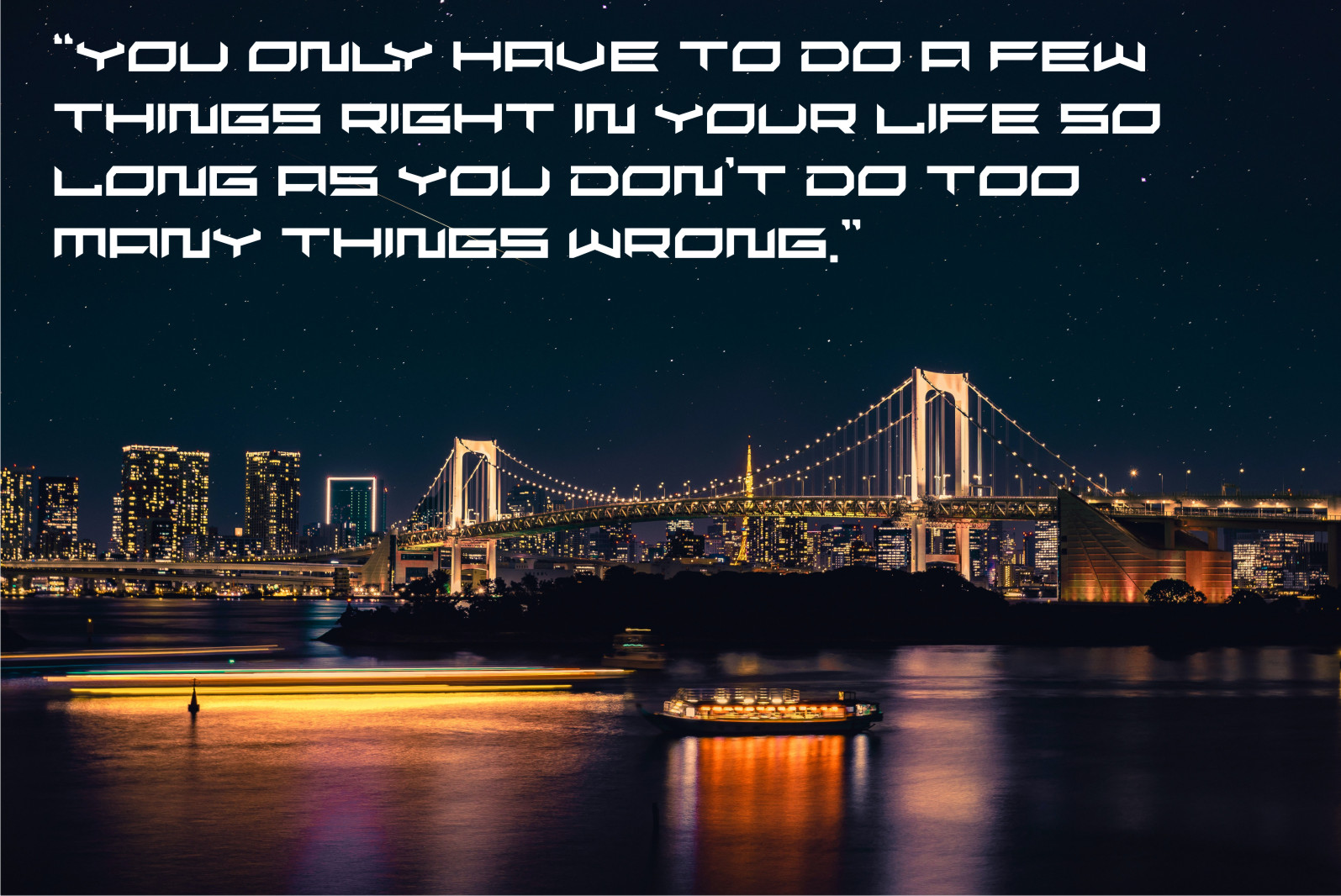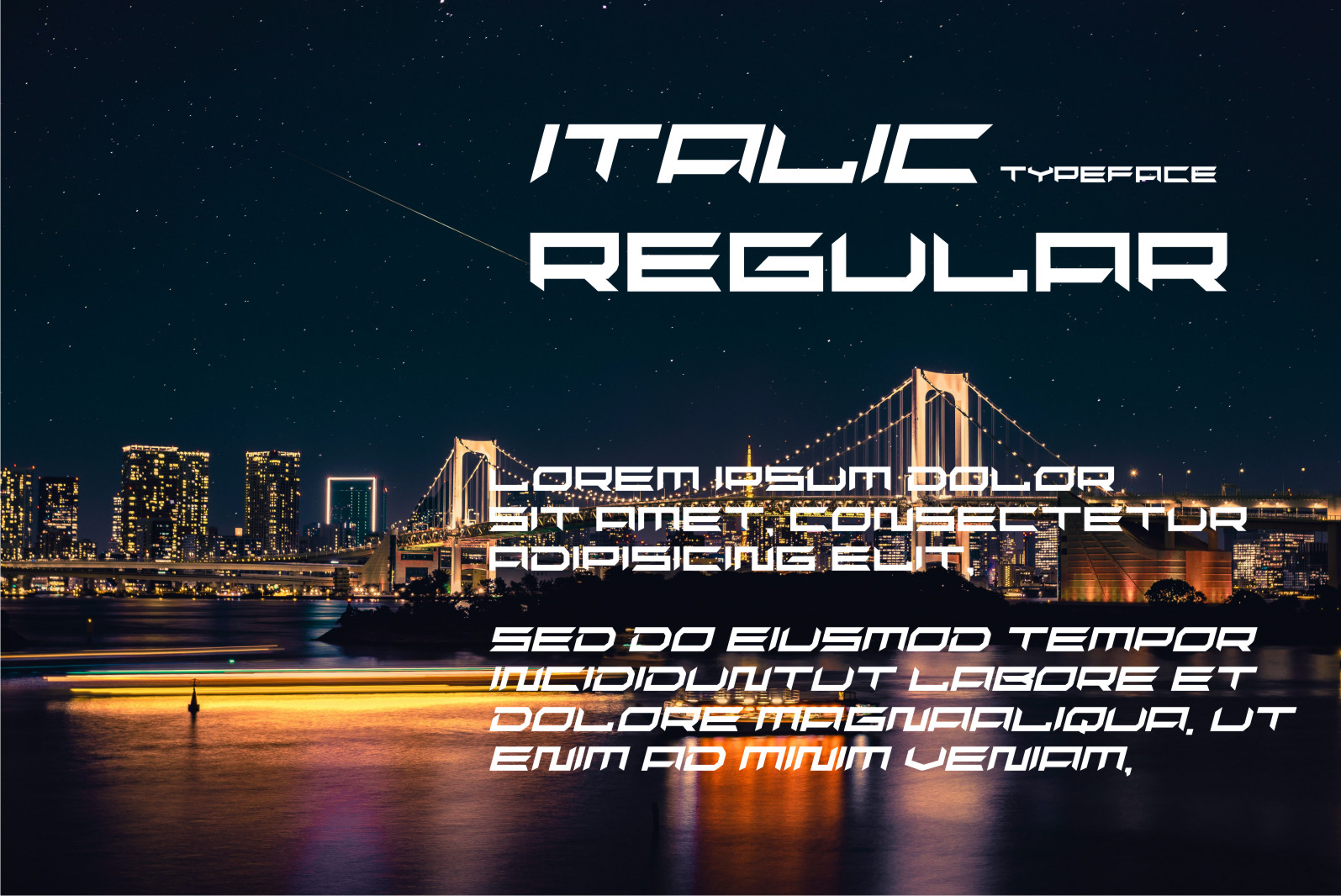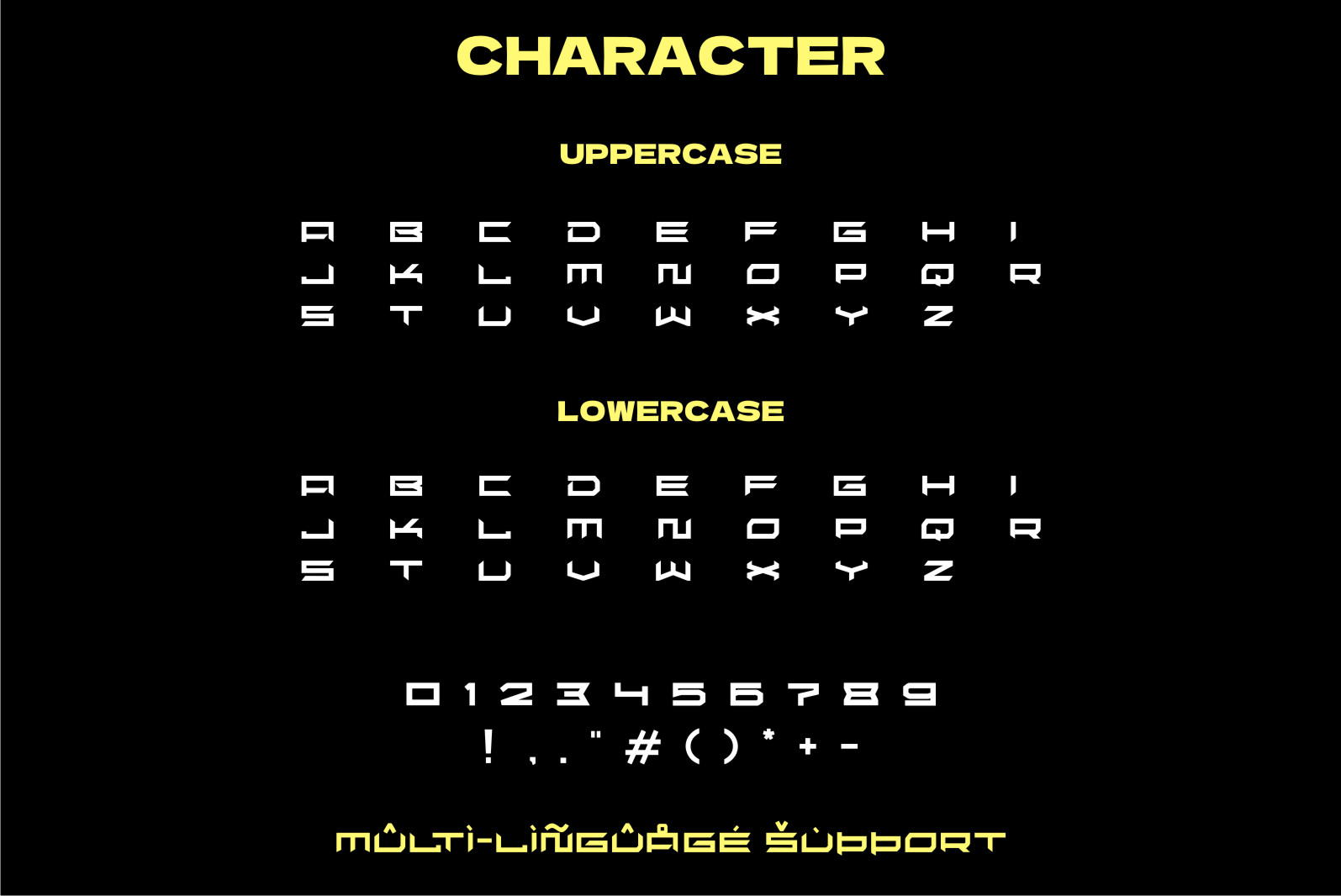
Umans Font
Umans Font is a cool and robotic-styled display font. This font is ideal for writing web designs, business cards, or pretty much anything else that requires a futuristic touch.